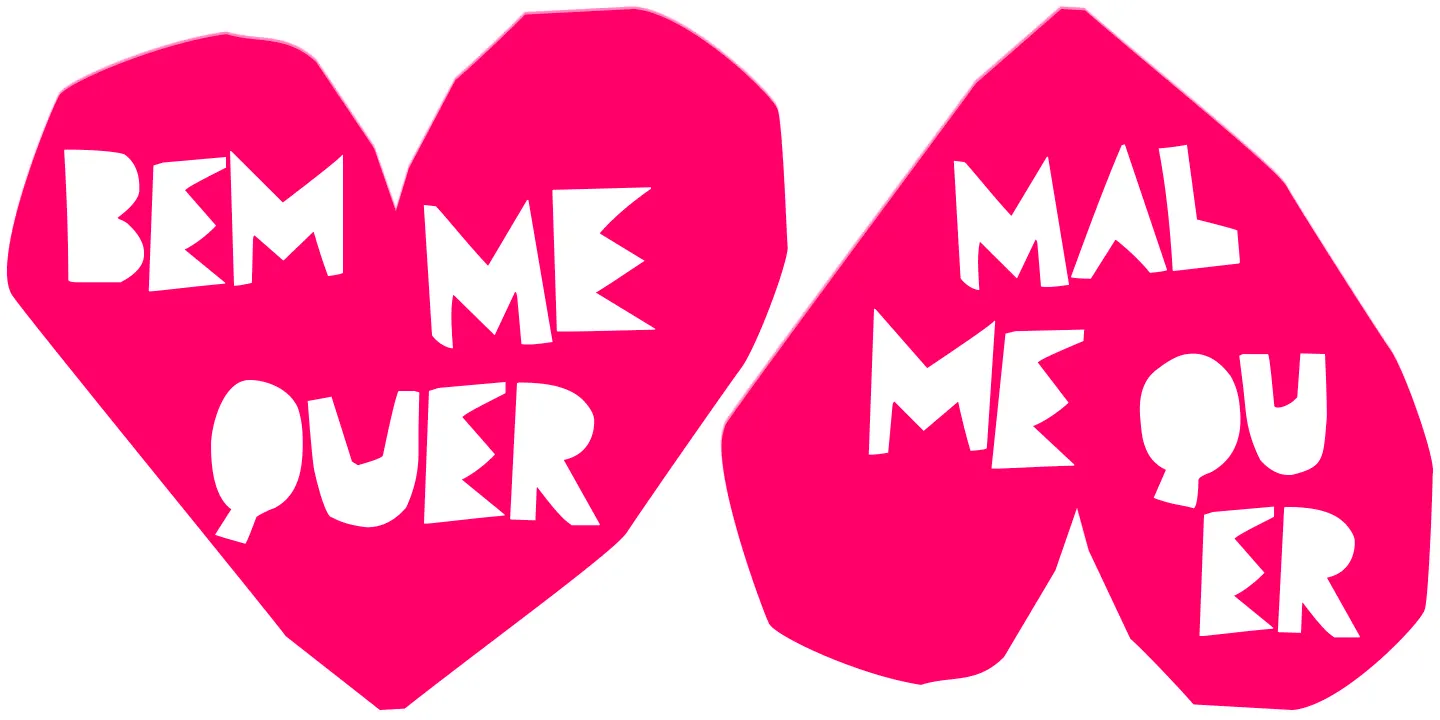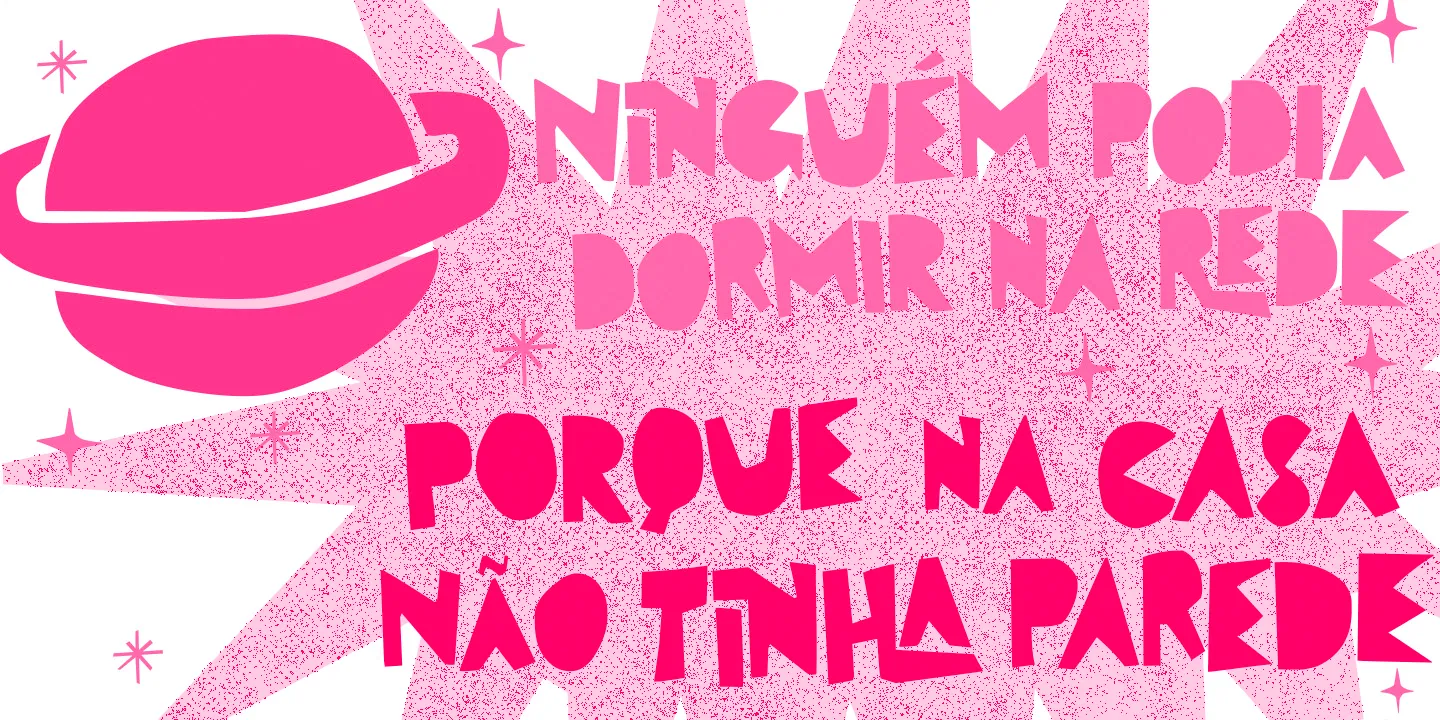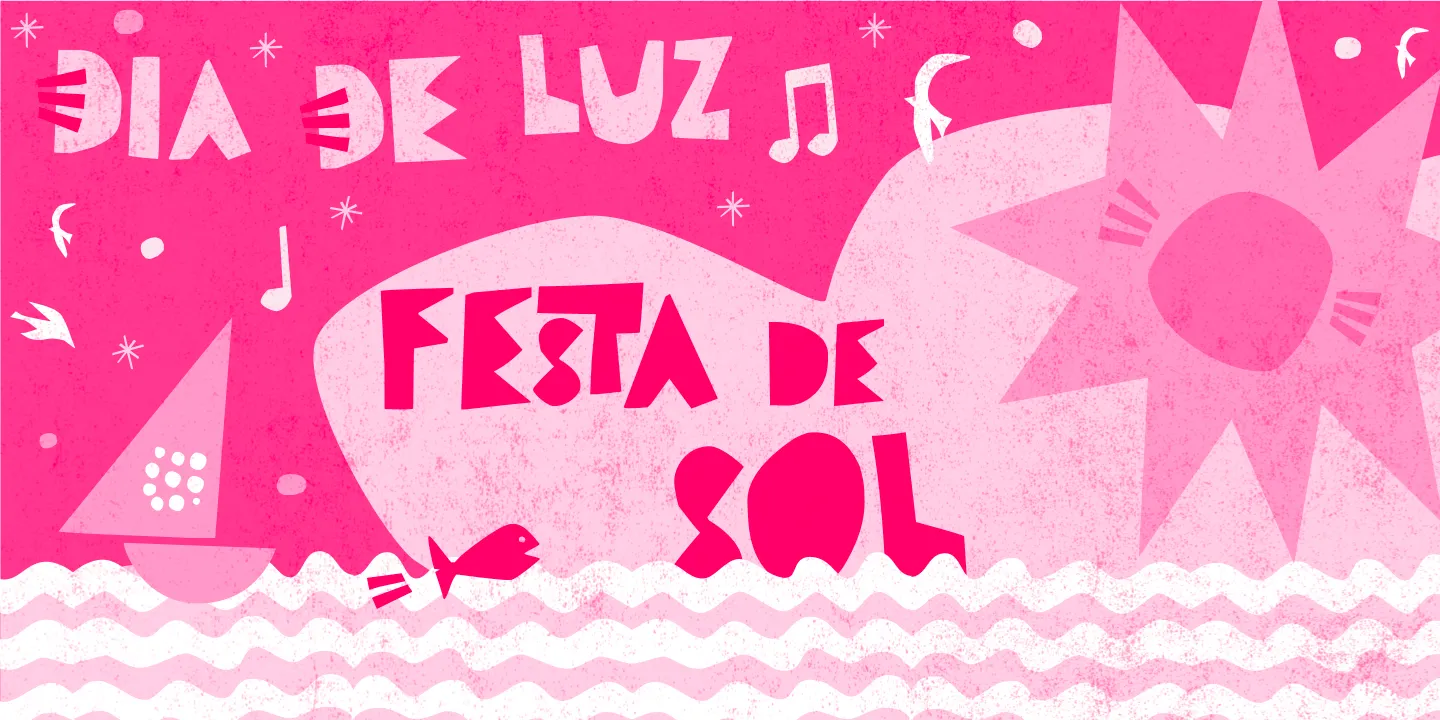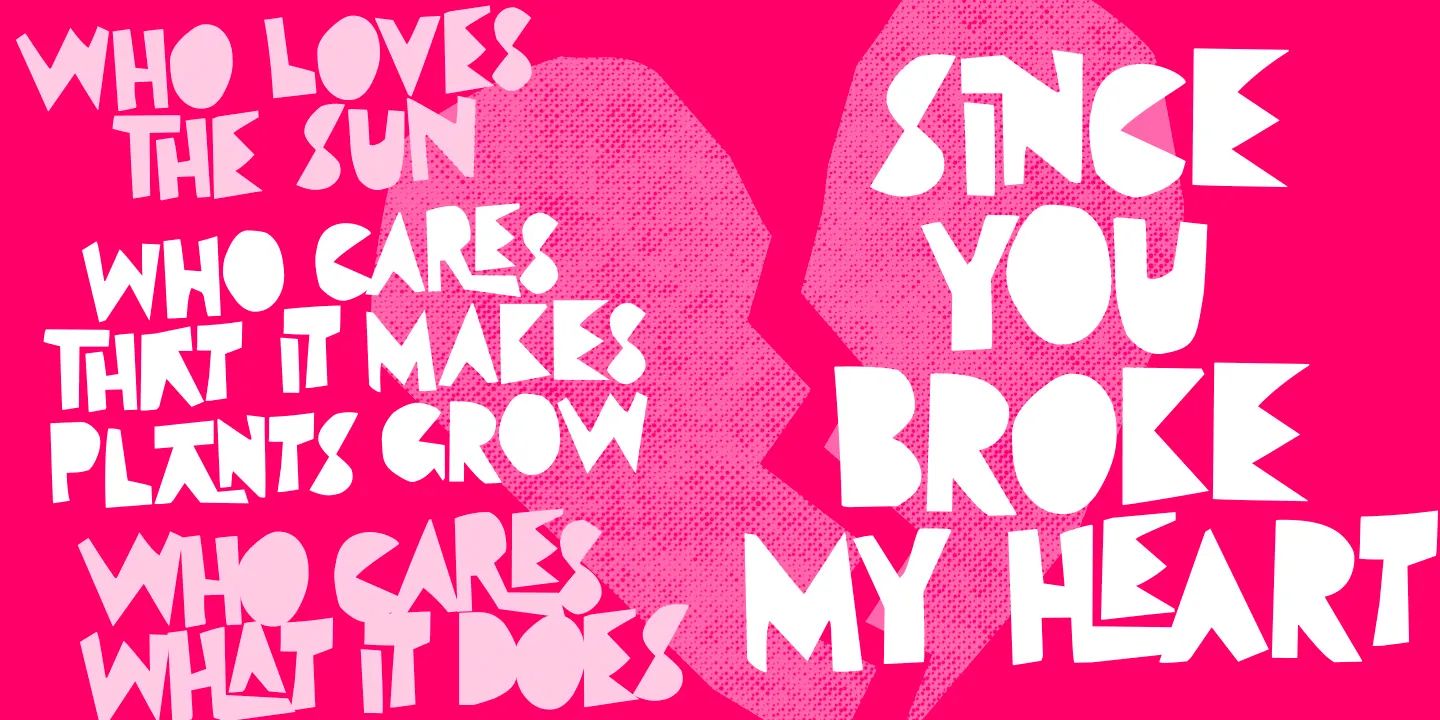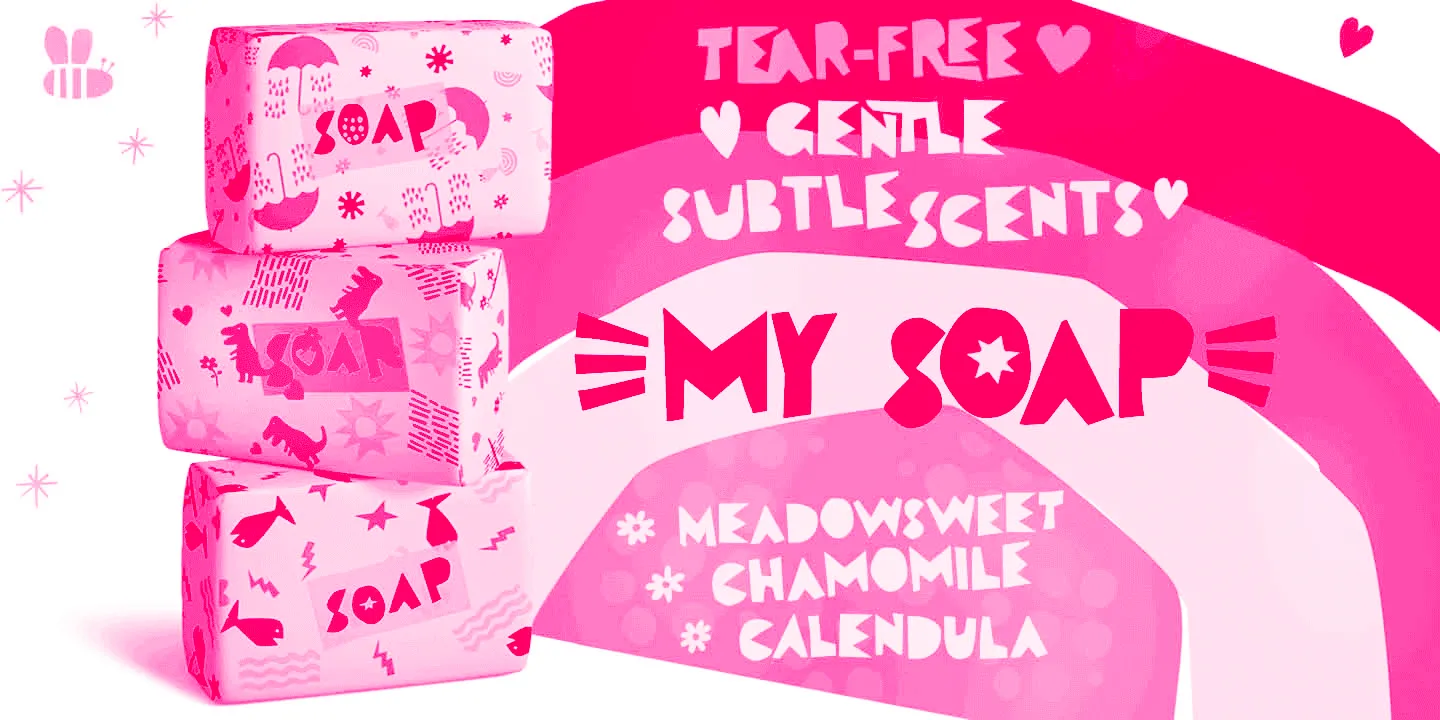
Arca Font Family
Arca
Arca is a charming font inspired by the beloved Brazilian children’s album by Vinicius de Moraes, author of the bossa nova classic ‘Garota de Ipanema’ (Girl from Ipanema), and his partner Tom Jobim. The font has a cheerful, cut-out look reminiscent of the original album cover designed by Elifas Andreato in 1980. Included are Cutouts to add that extra touch to your designs. Now, let’s dance!
• Discretionary Ligatures
• Fractions
• Ordinal Numerals
• Superscript